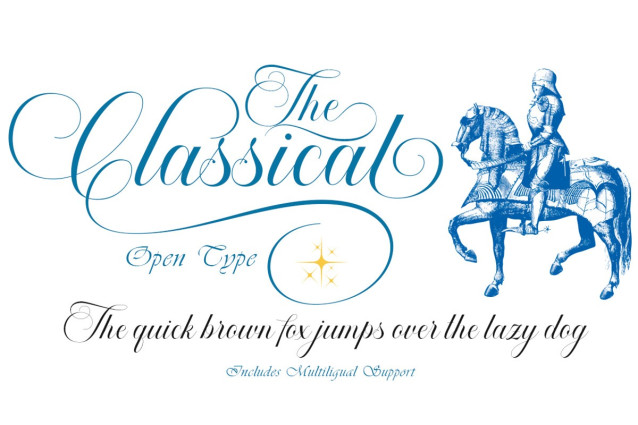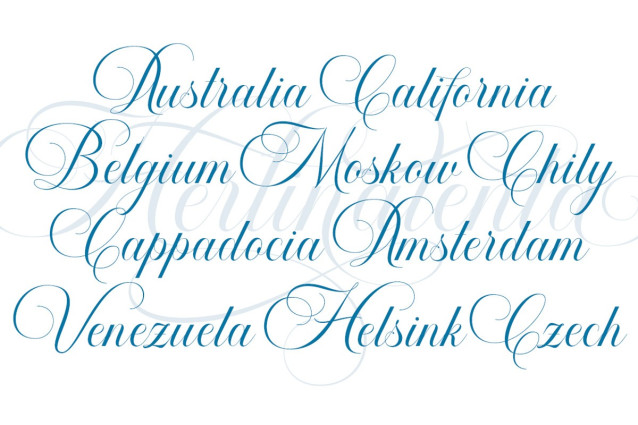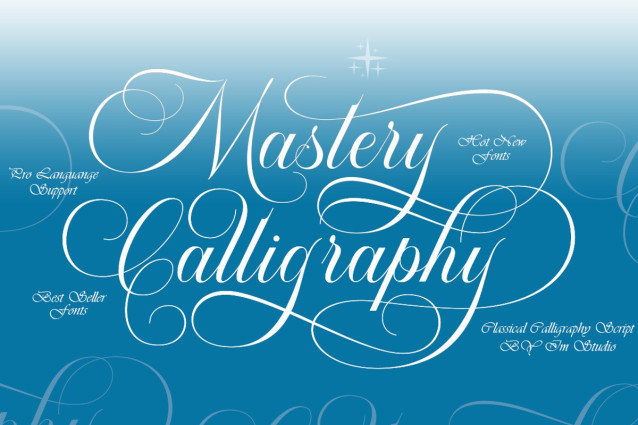
Mastery Calligraphy Font
Mastery Calligraphy Font, with a super smooth calligraphy font, easy to use, yet still classic, feminine and elegant. The font comes in two versions: regular and regular.
Mastery Calligraphy can be achieved by practicing simple techniques. Let’s look at some alternative methods, with different diagrams, to understand the meaning of each word, for example: b.1, b.2, b.3, b.4, etc.
Mastery Calligraphy is a skill that involves creating and writing beautiful designs, such as Branding, Logos, Images, Banners, Social Media Posts, Shares, Websites, Public Relations and more.